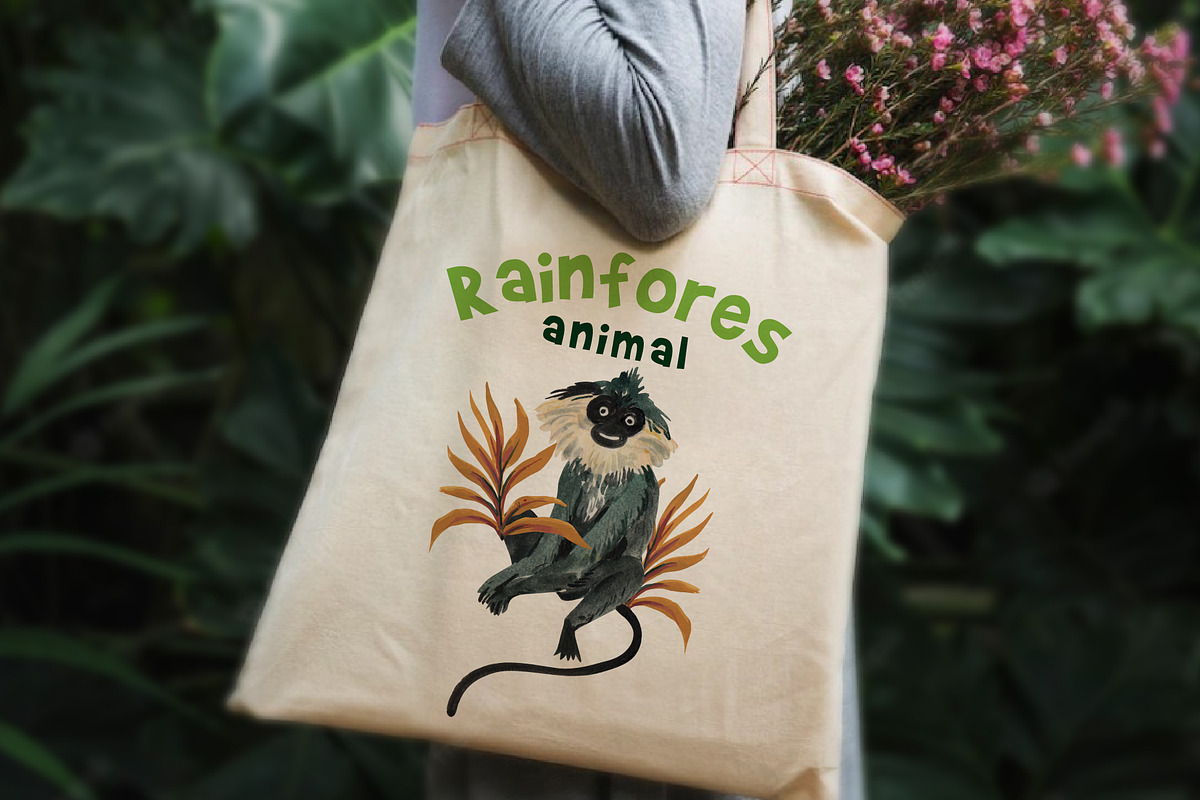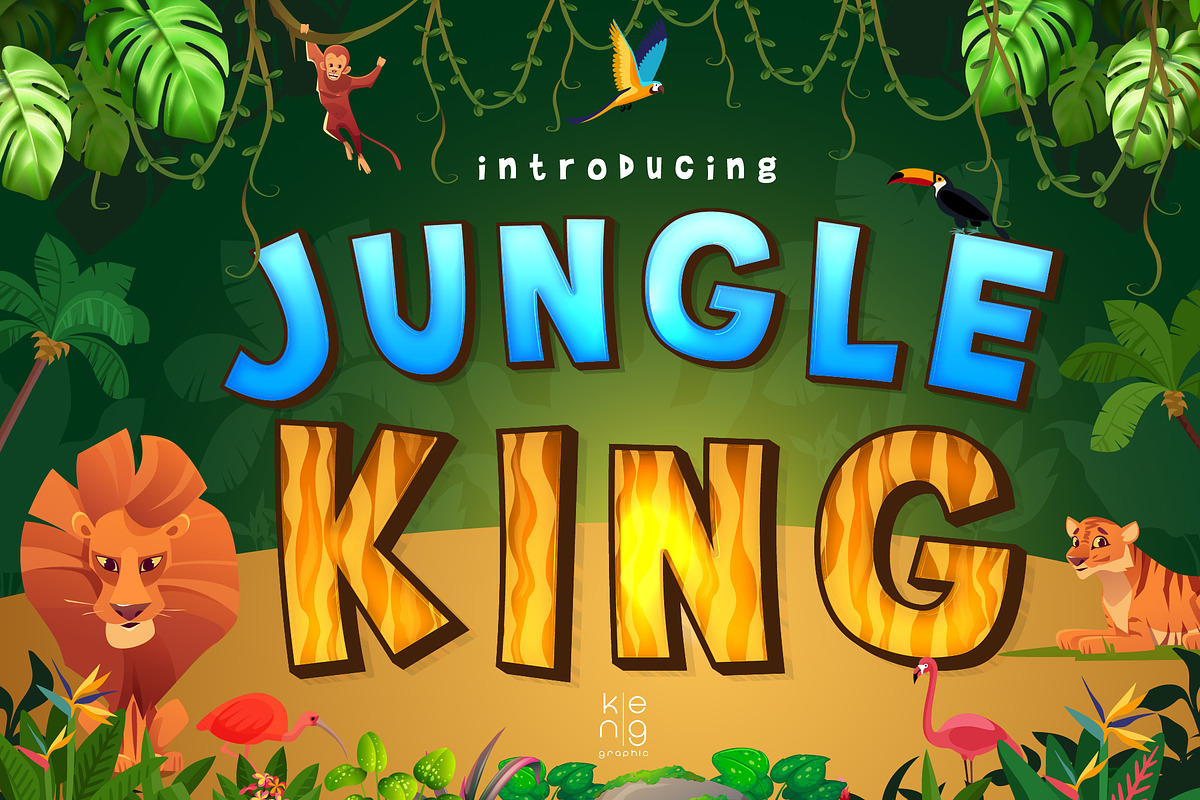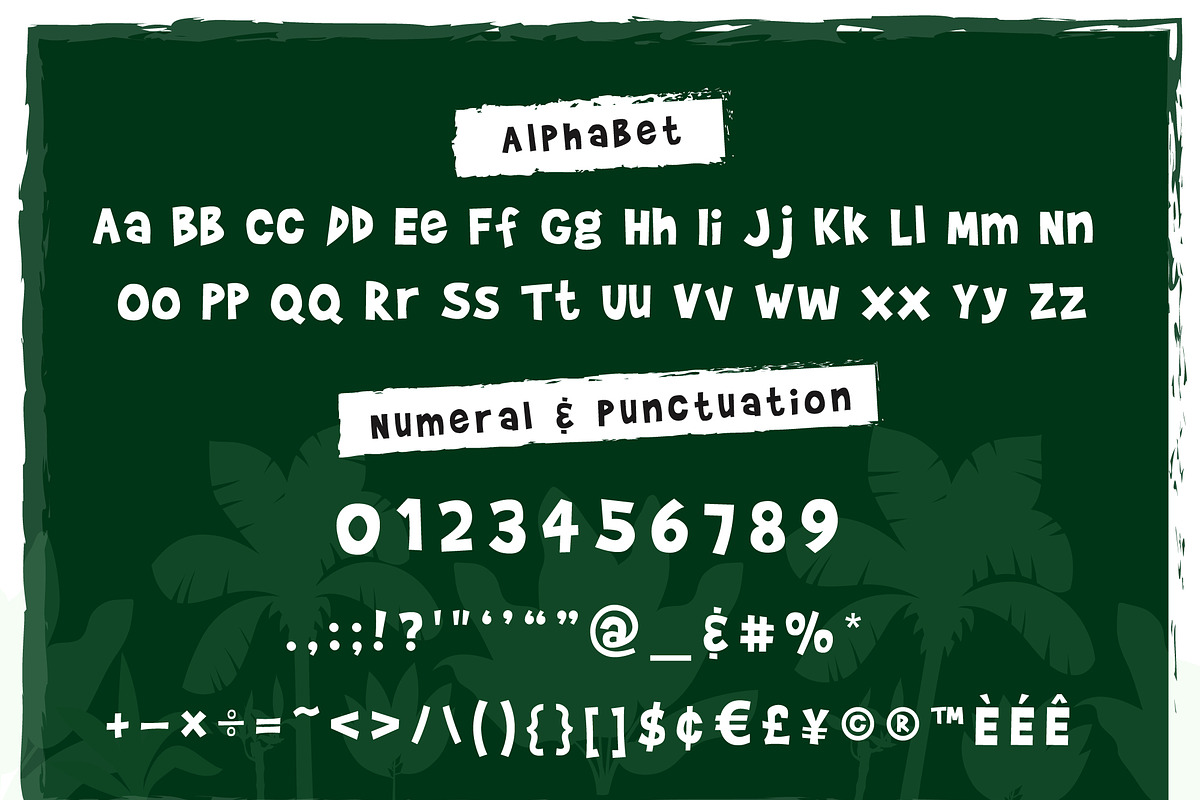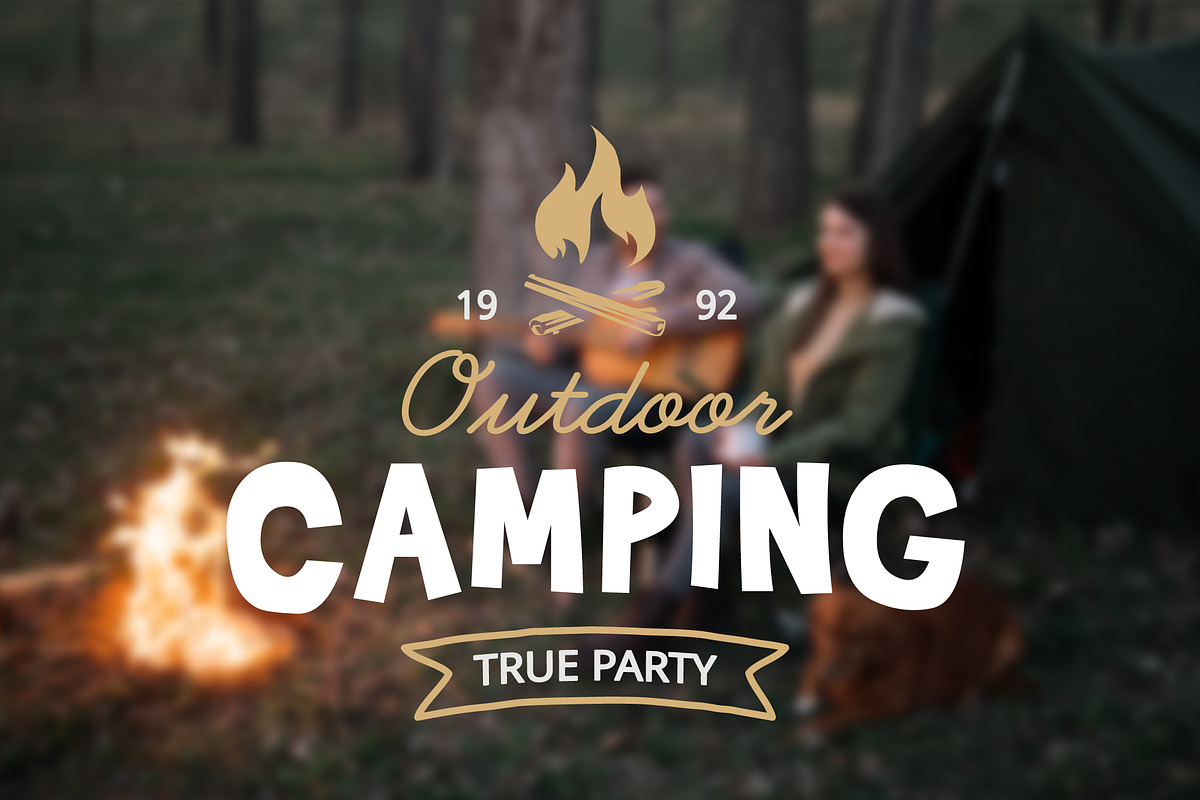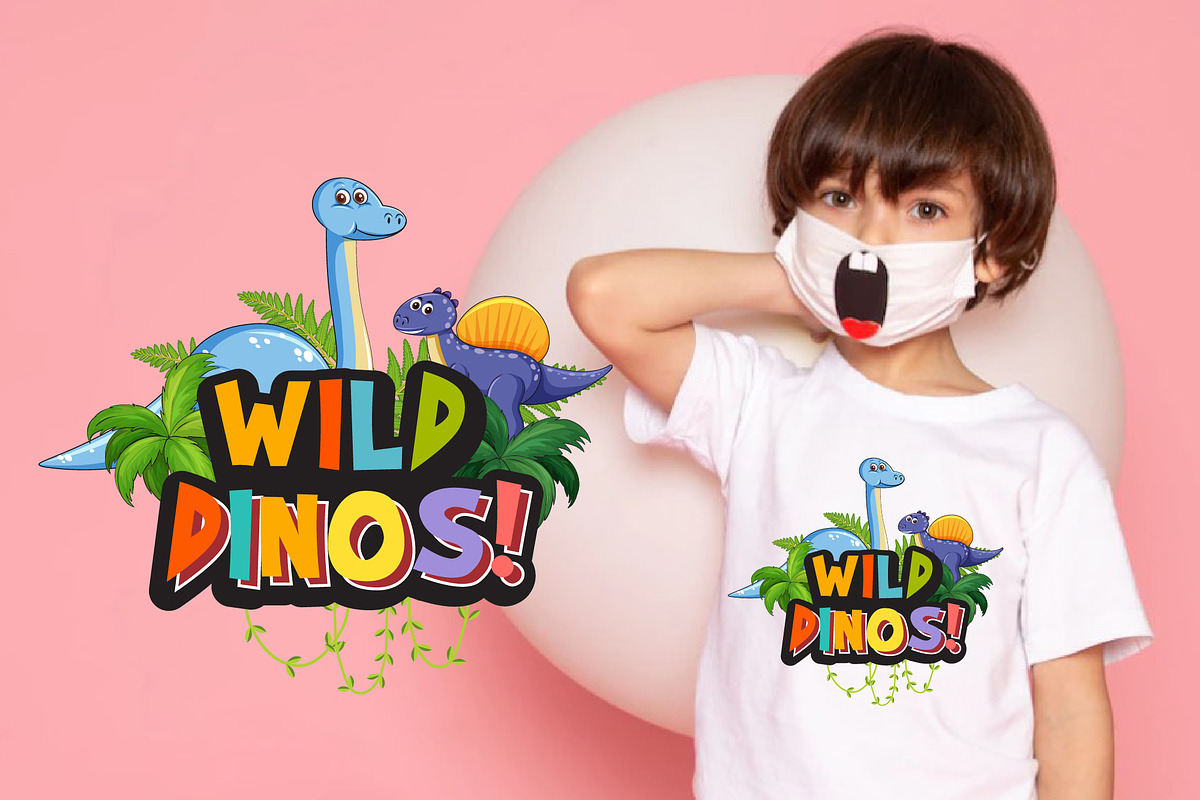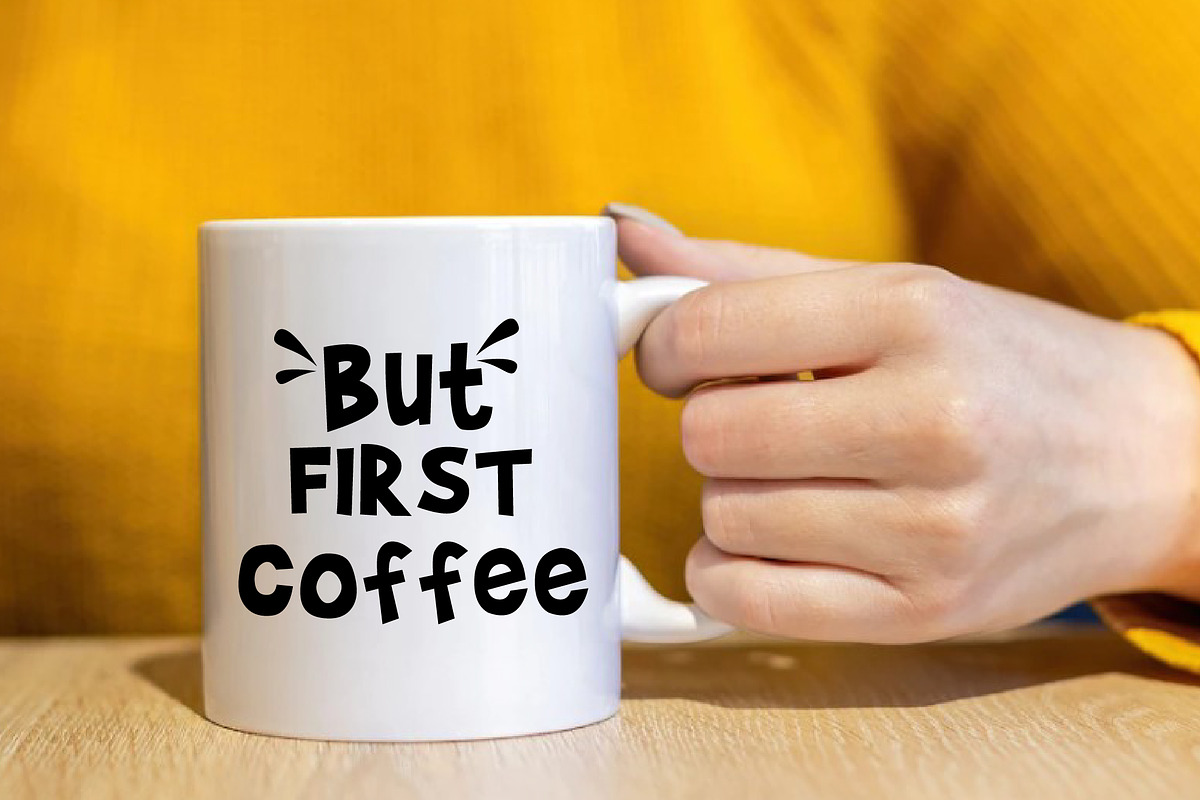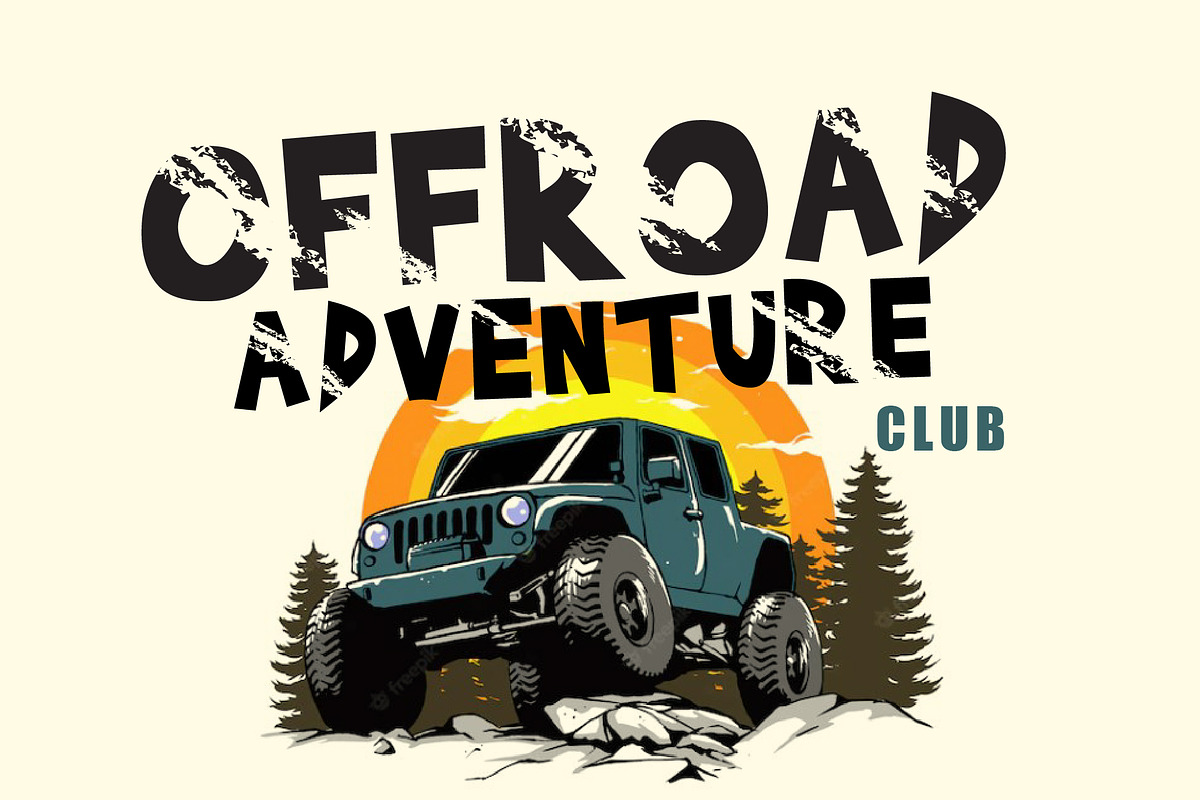
Jungle King Font
Jungle King is a cool cartoon-style display font with a great punch. Everything written in this font will be instantly recognizable and will attract attention. It will work great for comic book style, online games, adventure event posters, shirts, poster mugs, movie titles, eye-catching social media posts, or anything that requires youthfulness and courage.